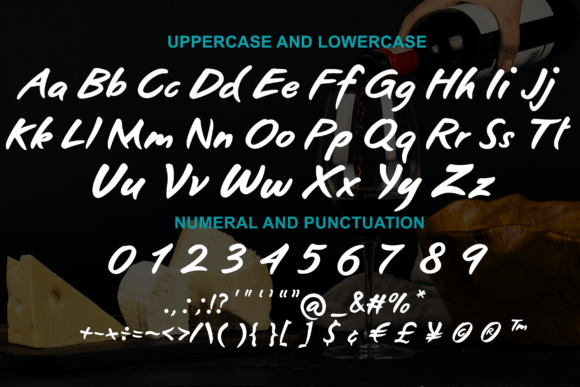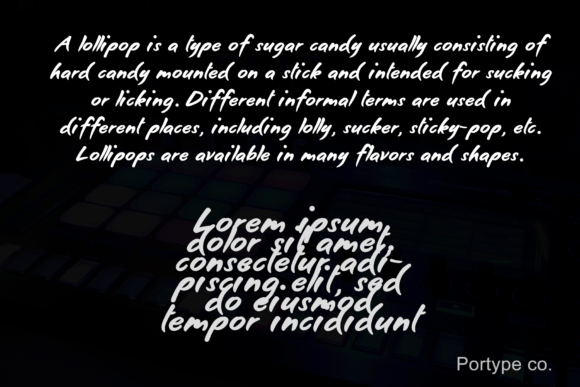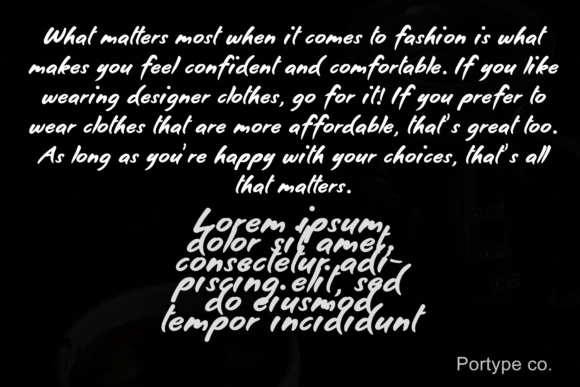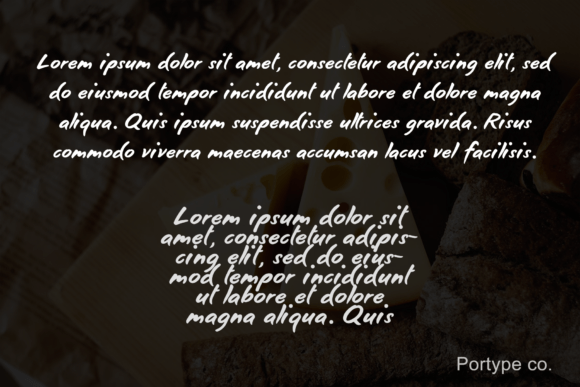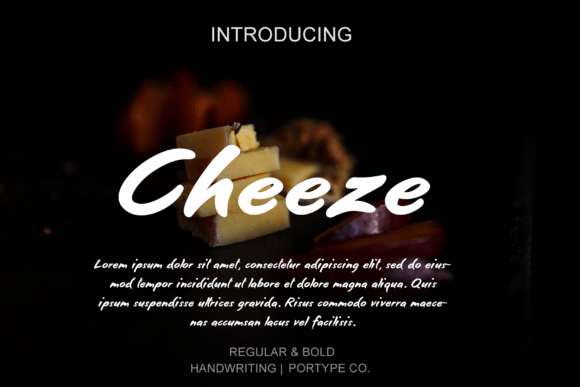
The Perfect Blend of Whimsy and Elegance: Cheeze Font
Have you ever stumbled upon a beautiful handwritten note that instantly made your day? Maybe it was a love letter, a birthday card, or a simple thank-you note. Whatever it was, you can’t deny the magic of handwritten charm. That’s exactly what Cheeze Font captures – the essence of handwritten beauty in a digital format. This enchanting typeface is perfect for designers looking to add a touch of personality to their projects.
Crafted with meticulous attention to detail, Cheeze Font combines the warmth and character of hand-drawn letterforms with a touch of whimsy. Its smooth, organic lines flow effortlessly, giving the font a natural and inviting feel. Whether you’re designing greeting cards, invitations, logos, or any other project that needs a touch of authenticity and uniqueness, Cheeze Font is the perfect choice.
Cheeze Font Key Features
- Font Family: Cheeze Font is a unique, handwritten font family with a playful and casual feel.
- Unique Characteristics: Features a distinctive, hand-drawn design with irregular letterforms, making it perfect for creating eye-catching headings and titles.
Designer Review: “Cheeze Font”
As a designer, I’ve had the chance to work with a wide range of fonts, and I must say, “Cheeze Font” is a unique addition to my collection. ✨
Here are some of its strengths:
- Unique aesthetic: “Cheeze Font” has a quirky, playful vibe that can add a lot of character to your designs.
- Good for casual projects: Its informal feel makes it perfect for social media graphics, blog posts, and other casual content.
- Customizable: With its large character set and OpenType features, you can easily experiment with different styles and effects.
- Lack of sophistication: For more formal or professional projects, “Cheeze Font” might not be the best choice.
- Overuse potential: Its playful nature can make it feel gimmicky if used too much, so be sure to balance it with other fonts.
- Legibility issues: At smaller sizes, some of the characters can be difficult to read, so make sure to test it thoroughly.
Overall, “Cheeze Font” is a fun and versatile font that can add a lot of personality to your designs. While it may not be the best choice for every project, it’s definitely worth having in your toolkit.
Tips for Getting the Most Out of “Cheeze Font”
Use “Cheeze Font” to add a playful and whimsical touch to your designs.
Pair “Cheeze Font” with other playful fonts or graphics to create a cohesive design aesthetic.
“Cheeze Font” is commonly used for: